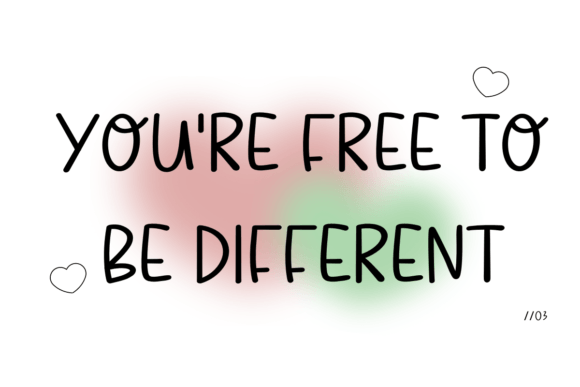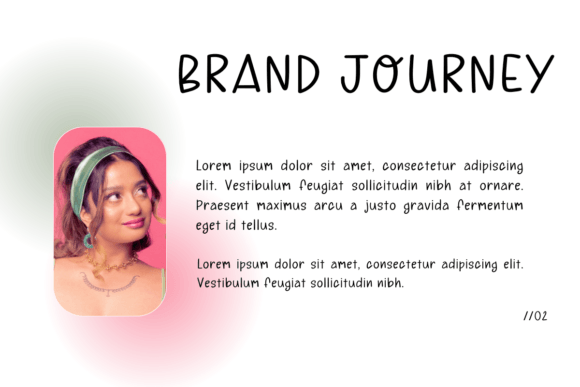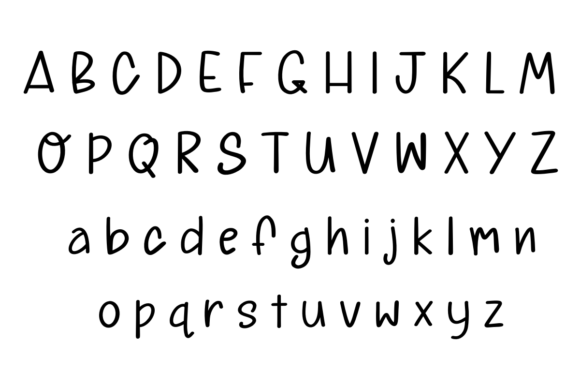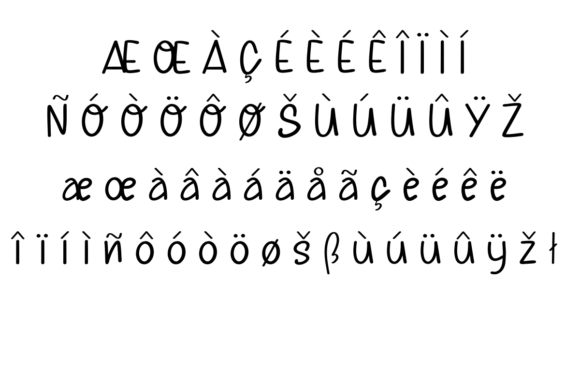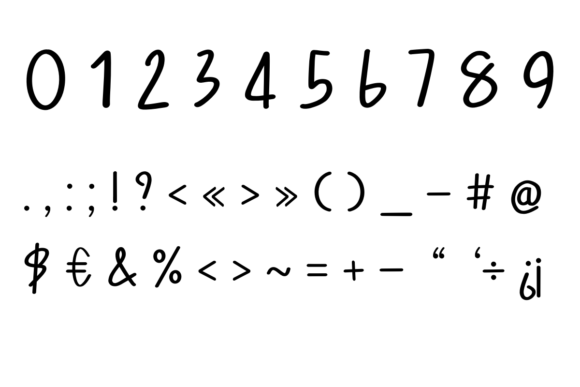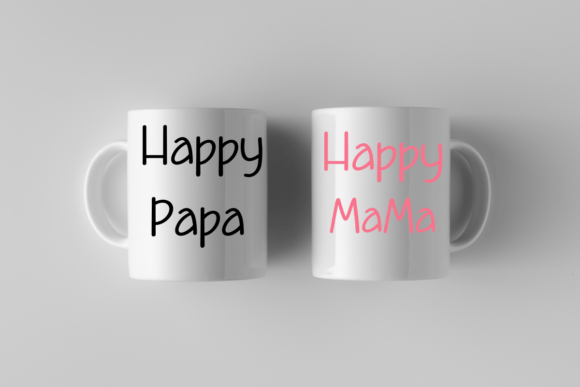
Caterina Font: A Playful Handwritten Sans Serif for Your Designs
Are you tired of using the same old fonts in your designs? Look no further than Caterina Font, a playful handwritten sans serif font that is sure to capture your heart. With its incredibly distinct and timeless style, Caterina is the perfect choice for designers and crafters looking to add a touch of personality to their work.
What is Caterina Font?
Caterina Font is a unique and charming handwritten sans serif font that is perfect for a variety of design projects. Its playful and carefree style makes it ideal for use in designs that require a touch of whimsy and fun. Whether you’re working on a branding project, a social media graphic, or a craft project, Caterina Font is sure to add a dash of personality and style.
Key Features of Caterina Font
So, what makes Caterina Font so special? Here are just a few of its key features:
- Playful handwritten style: Caterina Font has a fun and playful handwritten style that is sure to add a touch of personality to your designs.
- Distinct and timeless: Despite its playful style, Caterina Font has a timeless quality that ensures it will remain stylish and relevant for years to come.
- Sans serif: As a sans serif font, Caterina Font is clean and easy to read, making it perfect for use in a variety of design projects.
- Versatile: Caterina Font is versatile and can be used in a range of design projects, from branding and advertising to crafting and DIY projects.
Why Choose Caterina Font?
So, why should you choose Caterina Font for your next design project? Here are just a few reasons:
- Adds personality to your designs: Caterina Font is a great way to add a touch of personality and whimsy to your designs.
- Easy to read: Despite its playful style, Caterina Font is easy to read and can be used in a variety of design projects.
- Timeless style: Caterina Font has a timeless quality that ensures it will remain stylish and relevant for years to come.
- Perfect for crafters and designers: Caterina Font is perfect for crafters and designers who are looking for a unique and charming font to use in their projects.
How to Use Caterina Font
So, how can you use Caterina Font in your designs? Here are a few ideas:
- Branding and advertising: Use Caterina Font in your branding and advertising materials to add a touch of personality and whimsy.
- Social media graphics: Caterina Font is perfect for use in social media graphics, such as Instagram posts and Facebook graphics.
- Crafting and DIY projects: Caterina Font is a great choice for crafters and DIY enthusiasts who want to add a touch of personality to their projects.
- Stationery and invitations: Use Caterina Font in your stationery and invitations to add a touch of whimsy and fun.
Tips for Pairing Caterina Font with Other Fonts
When pairing Caterina Font with other fonts, here are a few tips to keep in mind:
- Pair with a serif font: Pairing Caterina Font with a serif font can create a nice contrast and add visual interest to your design.
- Use a bold font: Using a bold font in conjunction with Caterina Font can help to create a clear hierarchy of information in your design.
- Experiment with different font sizes: Experimenting with different font sizes can help to create visual interest and add depth to your design.
In conclusion, Caterina Font is a playful handwritten sans serif font that is sure to capture your heart. With its incredibly distinct and timeless style, Caterina is the perfect choice for designers and crafters looking to add a touch of personality to their work. Whether you’re working on a branding project, a social media graphic, or a craft project, Caterina Font is sure to add a dash of whimsy and fun. So why not give Caterina Font a try and see the difference it can make in your designs?